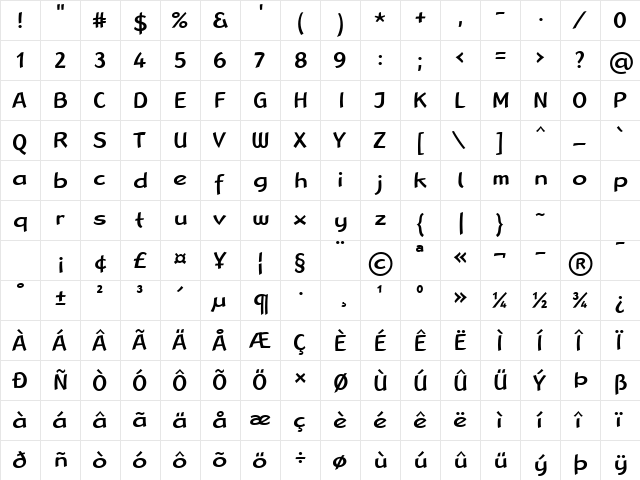
LTRana Medium Regular
Design Context for LTRana Medium Typeface
LTRana Medium takes a measured approach to typography — its balanced proportions and neutral character make it a reliable workhorse for both digital and print work.